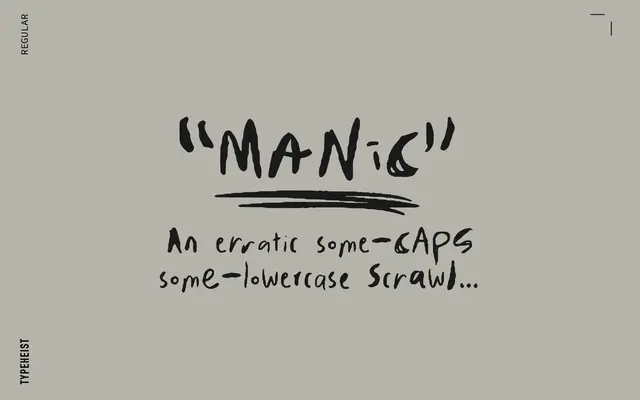
Halloween Handwritten Font Bundle
A bundle of eight hand-drawn Halloween-themed display fonts spanning eerie to playful styles, sold exclusively through Typeheist.
Eight handwritten fonts collected under a single Halloween-themed bundle, each described as hand-drawn and full of idiosyncratic character. The range runs from unsettling to monstrous to lighthearted, with glyphs and ligatures included across the set. Suited to seasonal work such as posters, event invitations, party decor and social media graphics.
The bundle comprises hand-drawn, handwritten display scripts with a horror and Halloween aesthetic, ranging from eerie to playful in character.